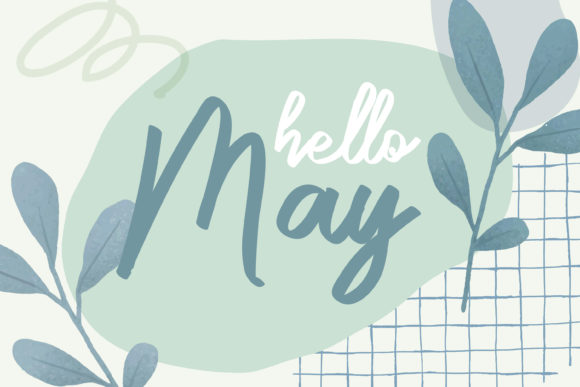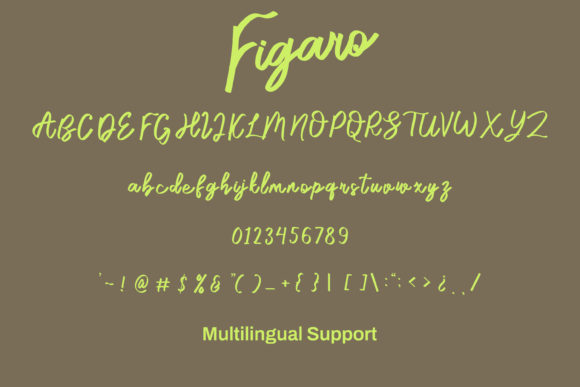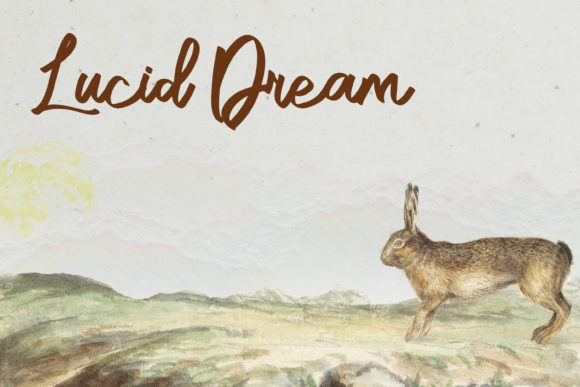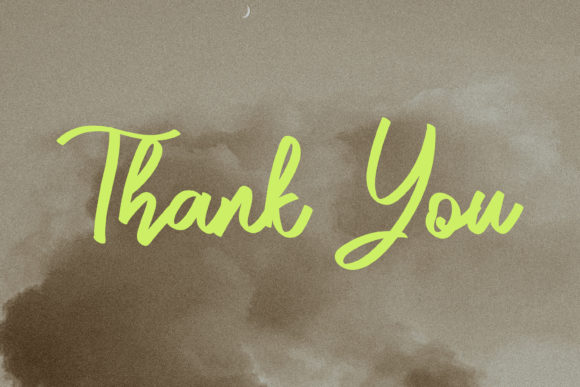
Figaro Font
About Figaro Font
“Figaro” is described as a delicate, elegant, and flowing handwritten font. With beautiful and well-balanced characters, it is crafted to match a wide pool of designs. Additionally, this font is PUA encoded, allowing easy access to all glyphs and swashes for enhanced design flexibility and customization.
The delicate and elegant qualities of “Figaro” make it suitable for projects that require a refined and sophisticated aesthetic. Whether you’re working on invitations, branding materials, or any creative endeavor, this font is designed to bring a touch of class to a variety of designs.
The flowing handwritten style adds a personal and authentic feel to your text, making “Figaro” a valuable asset for projects that demand a sense of individuality. Its well-balanced characters contribute to readability and visual appeal, ensuring versatility across different design contexts.
The PUA encoding feature allows users to access all the available glyphs and swashes with ease, providing additional creative options for customization. This enhances the font’s flexibility and makes it convenient for designers to incorporate special characters and decorative elements seamlessly.
Consider using “Figaro” in your next design project where a delicate, elegant, and flowing handwritten font is desired. Whether it’s for invitations, branding, or any creative application, let “Figaro” bring a touch of sophistication and authenticity to your designs.